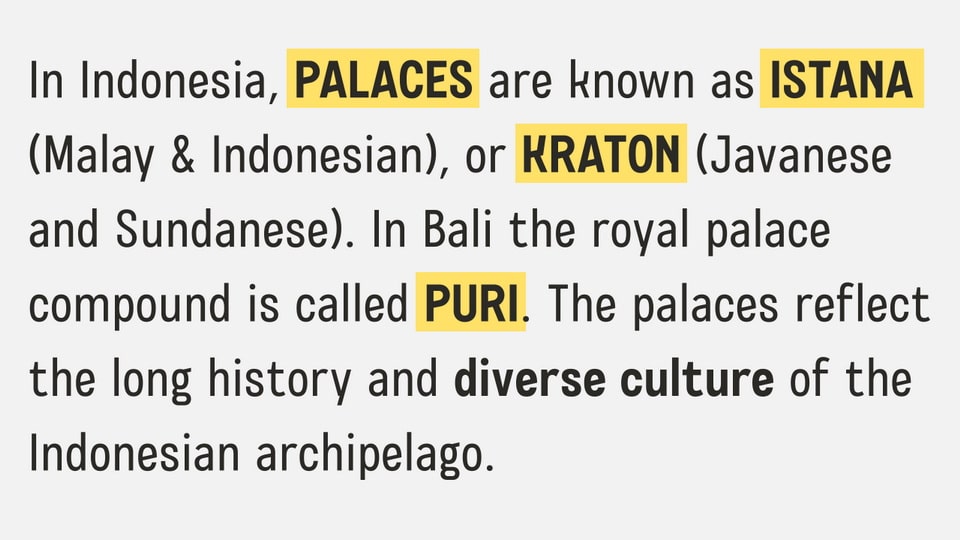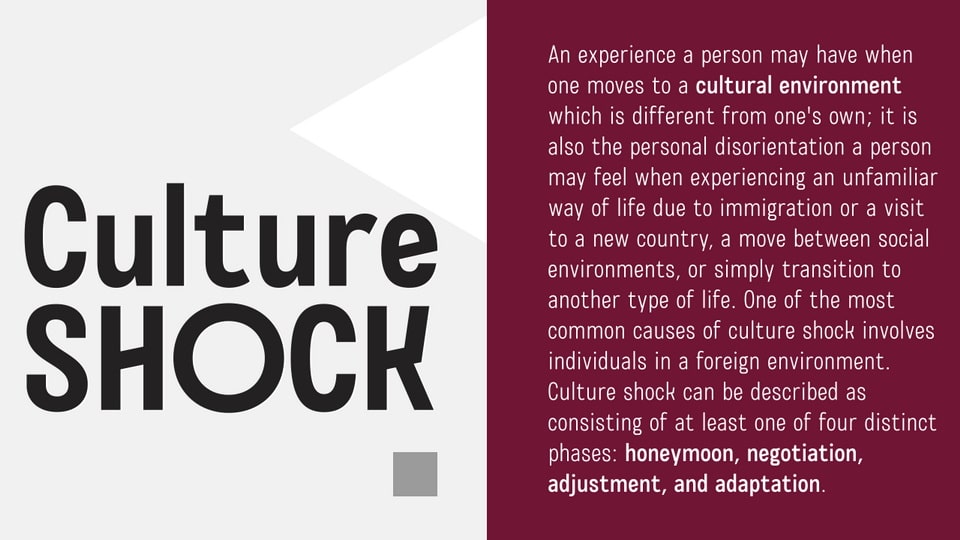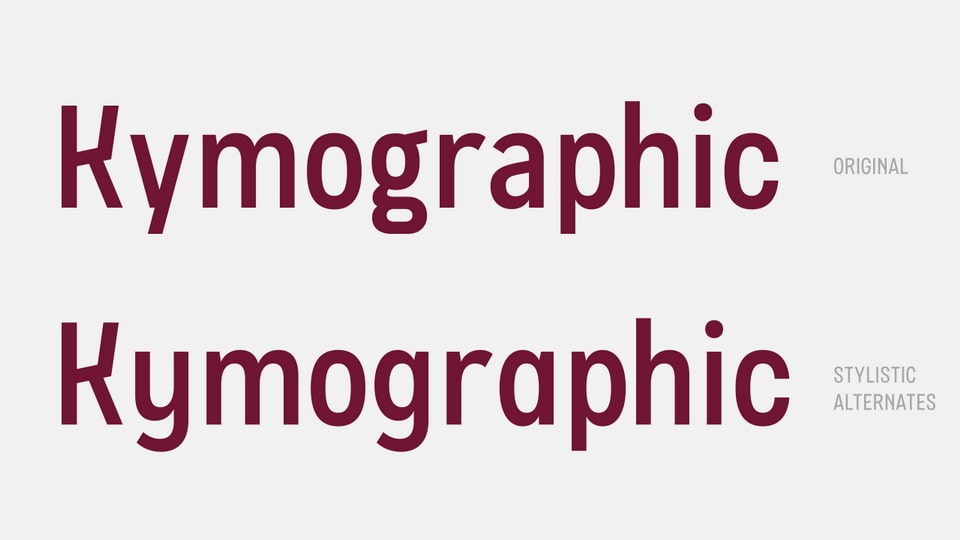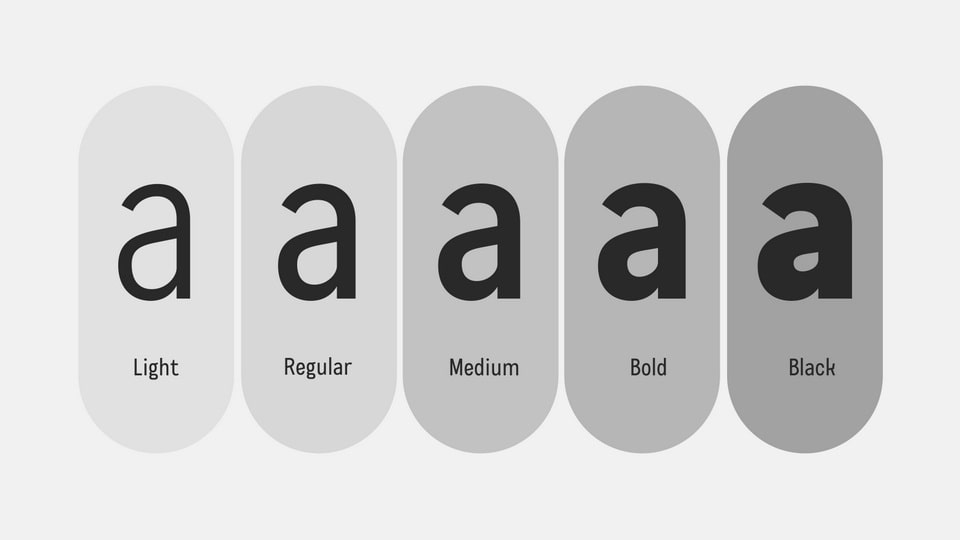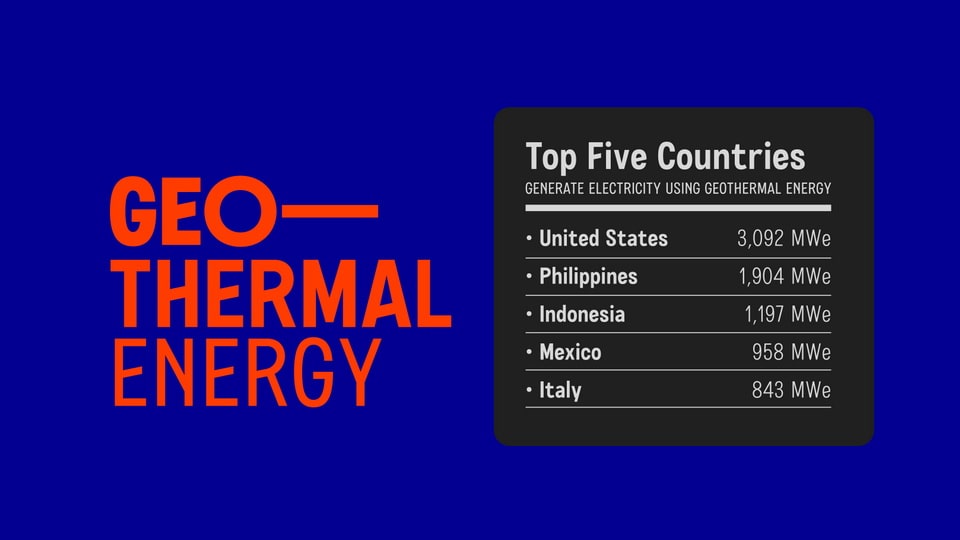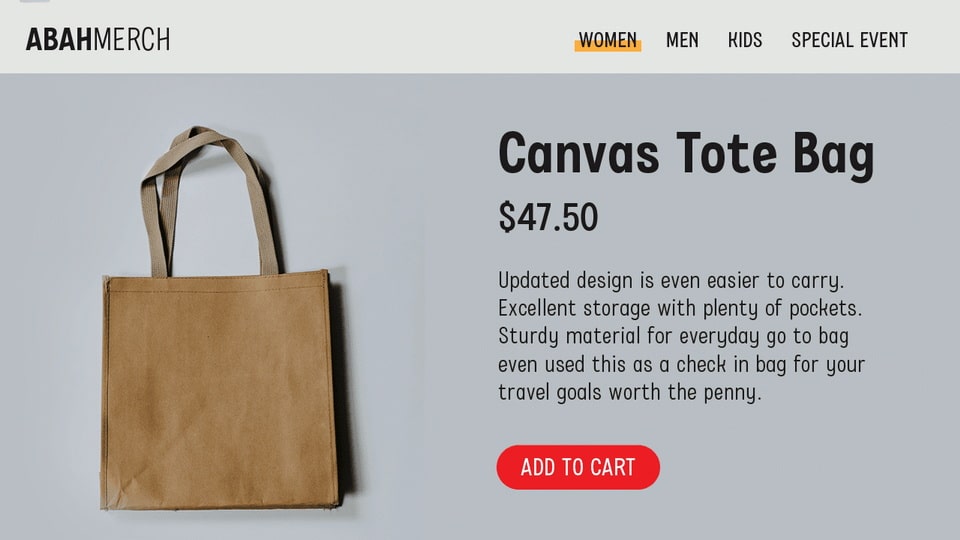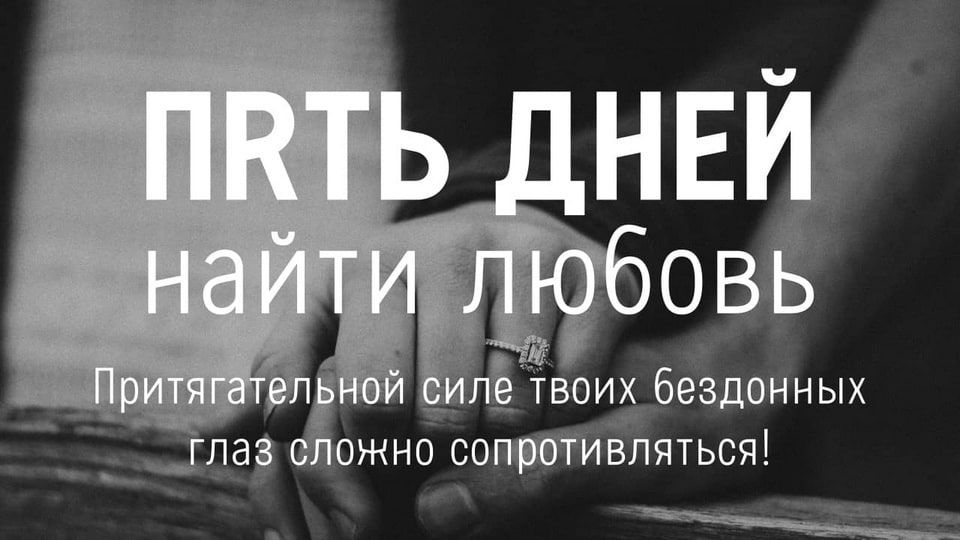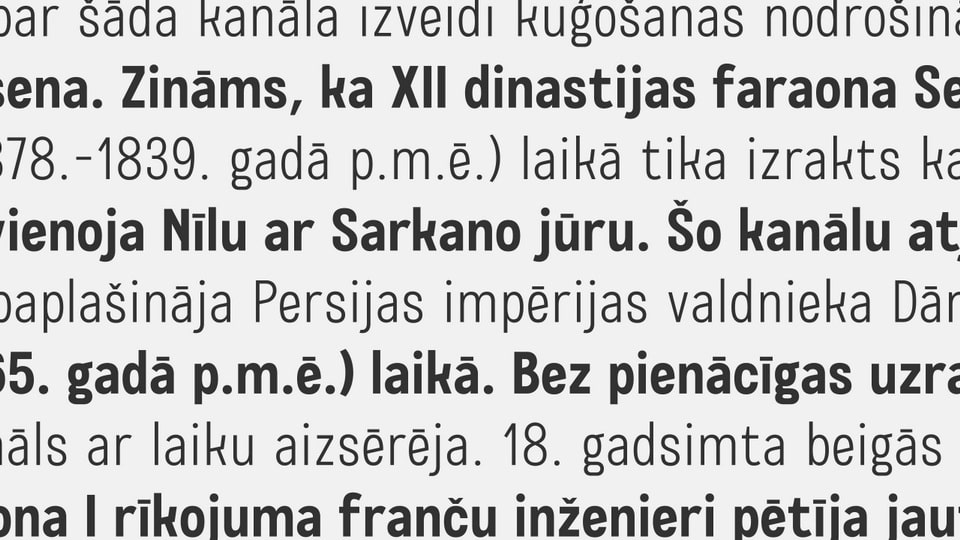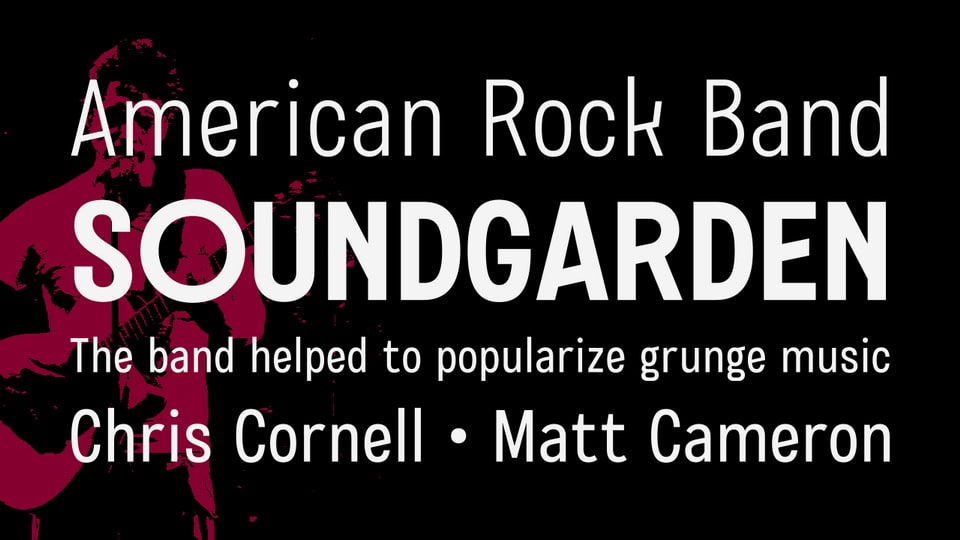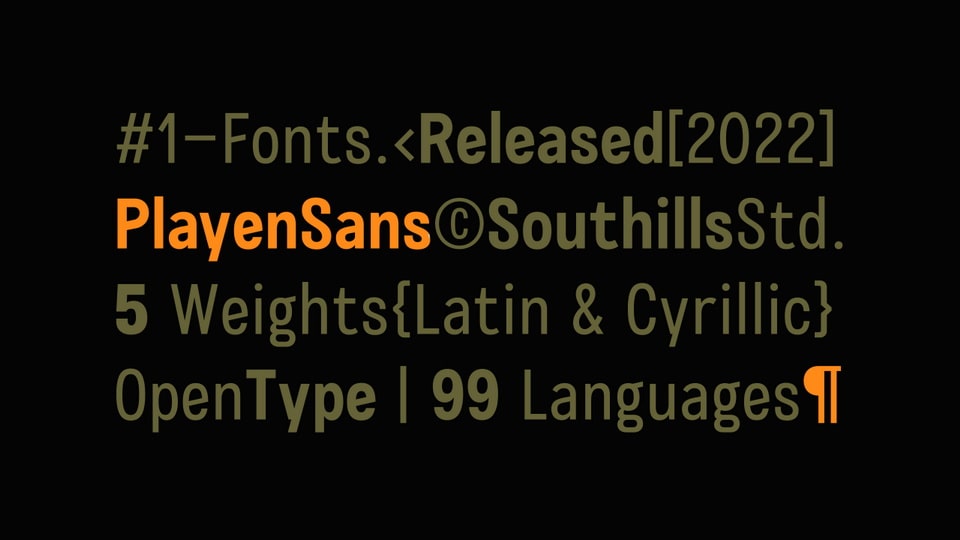
Playen Sans is a new sans serif font with a condensed style as an alternative choice for your typographic designs. This font is a mix of classic and modern styles that is cleanly designed to remain functional, legible and universal.
Playen Sans consists of 5 weights ranging from Light to Black. Some letters even stand out because they are made unique as a characteristic of the font. OpenType features are also included such as stylistic alternates. Apart from supporting multiple languages, Playen Sans also supports Cyrillic characters. This font is perfect for work related to text, branding, logotype, headlines, editorial and packaging.